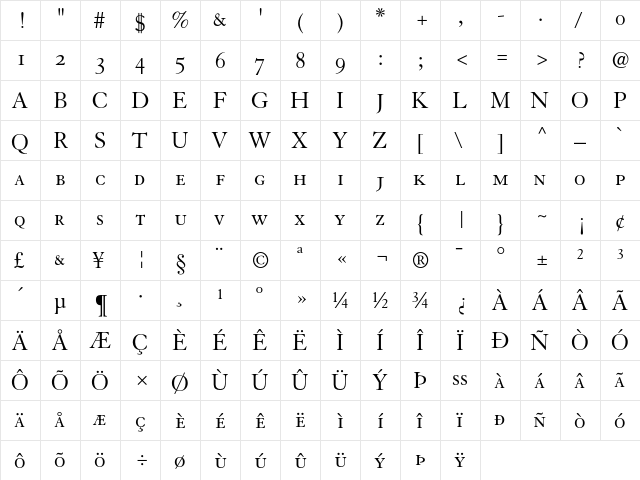
Granjon Small Caps & Old Style Figures
Design Context for Granjon Typeface
Granjon offers clean, dependable letterforms without strong stylistic allegiance, making it a practical choice for designers who need flexibility.
Pro Tip: Pair Granjon with a font of contrasting weight or personality to build a more expressive typographic hierarchy.